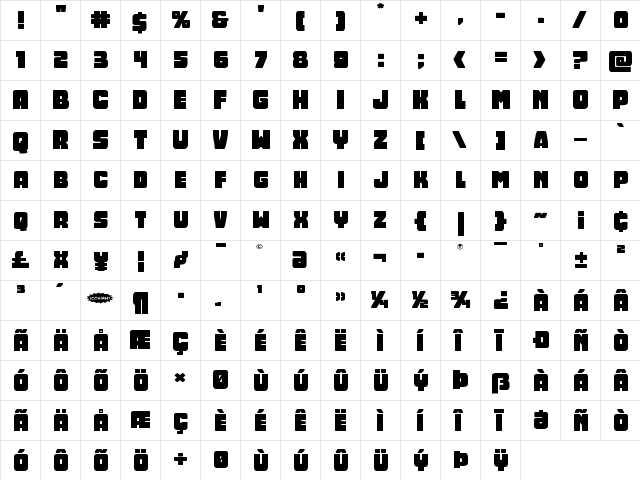
Opus Mundi Expanded Expanded
Design Context for Opus Mundi Expanded Typeface
Opus Mundi Expanded offers clean, dependable letterforms without strong stylistic allegiance, making it a practical choice for designers who need flexibility.
Pro Tip: Use Opus Mundi Expanded in both headline and body roles to test its range before committing to a single application.